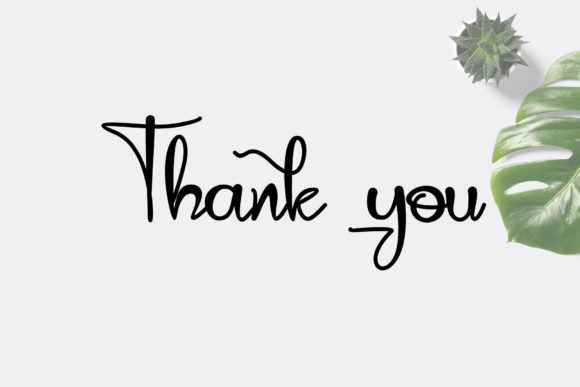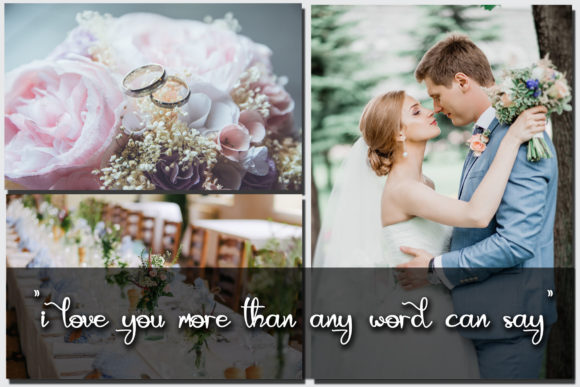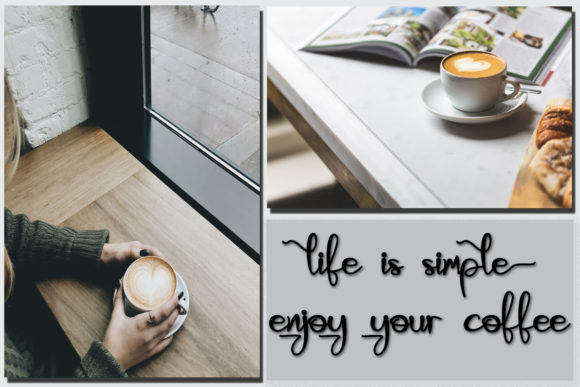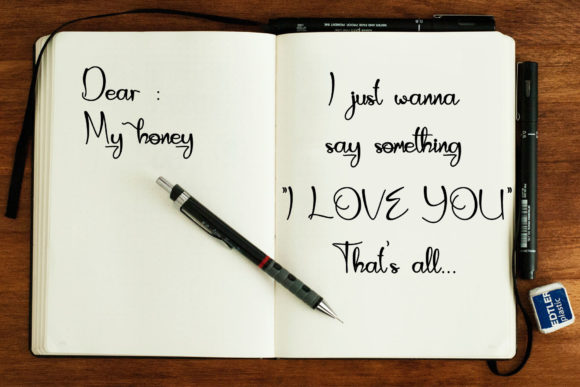
About Catheryne Font
Catheryne is a romantic and sweet calligraphy typeface with characters that dance along the baseline. It will add a luxury spark to any design project that you wish to create! This font is PUA encoded which means you can access all of the amazing glyphs and ligatures with ease!